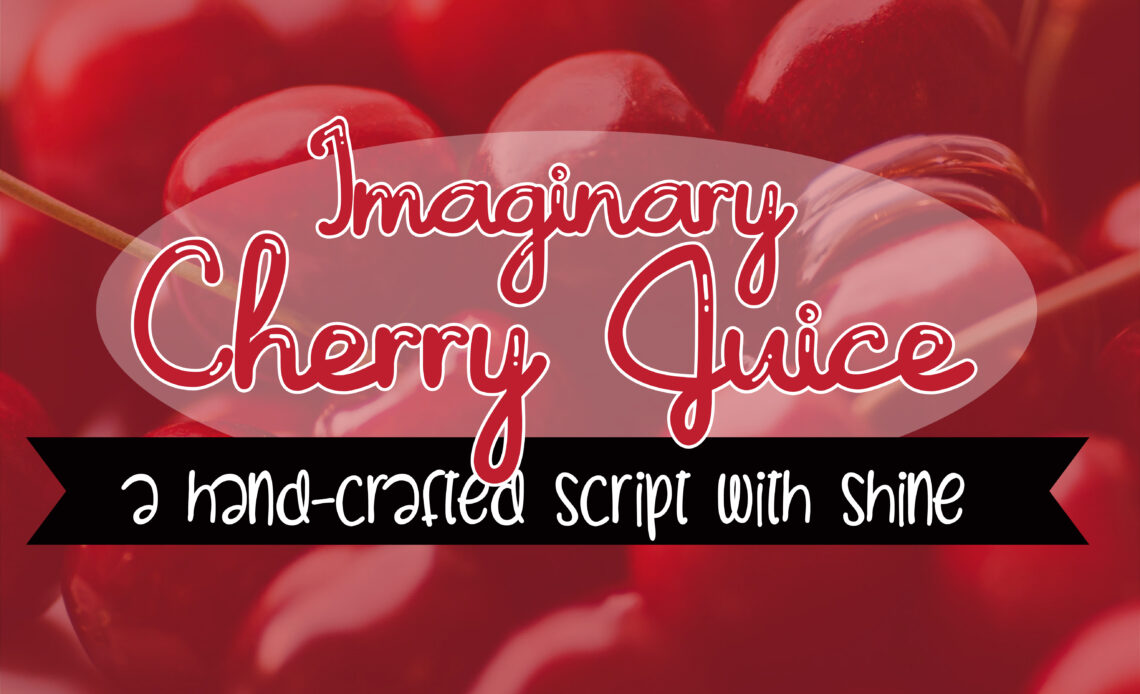
Embark on a typographic adventure with Imaginary Cherry Juice, a captivating script font that exudes charm and playfulness. Its hand-crafted characters, reminiscent of a playful dance on paper, bring a touch of nostalgia and warmth to any design.
Picture yourself immersed in a world of creativity, where every word you type becomes an artistic expression. Imaginary Cherry Juice's juicy little shine marks, reminiscent of sun-kissed cherries, add a touch of whimsy and delight to your digital creations.
This enchanting font is perfect for adding a personal touch to your projects. Whether you're creating eye-catching logos, designing heartfelt invitations, or crafting social media posts that pop, Imaginary Cherry Juice's unique style is sure to leave a lasting impression.
Let your imagination run wild as you explore the endless possibilities that await you with Imaginary Cherry Juice. Embrace its retro charm to create vintage-inspired designs that harken back to a simpler time. Or, blend it seamlessly with modern elements for a contemporary look that's sure to turn heads.
With Imaginary Cherry Juice, you'll discover a font that's not just versatile, but truly transformative. It has the power to transport your designs to a realm of enchantment, inviting your audience to embark on a visual journey like no other.
So, dive into the world of Imaginary Cherry Juice today! Let its playful spirit inspire you, its retro charm captivate you, and its endless possibilities ignite your creativity. Join the ranks of design enthusiasts who have discovered the magic of this extraordinary font and elevate your projects to new heights of artistry.